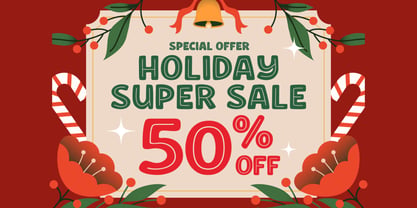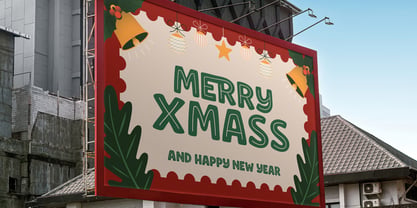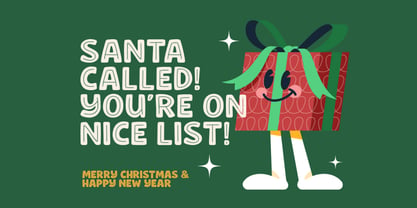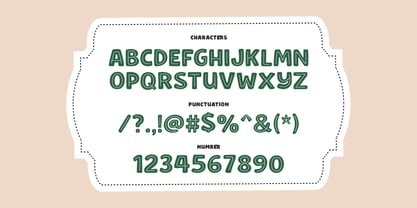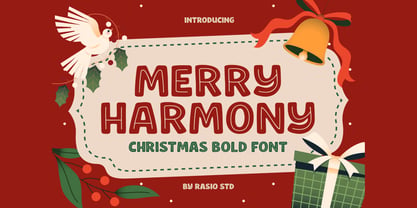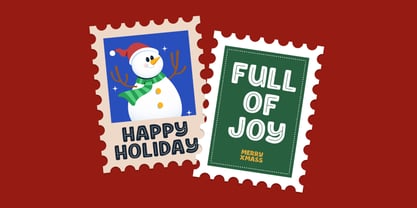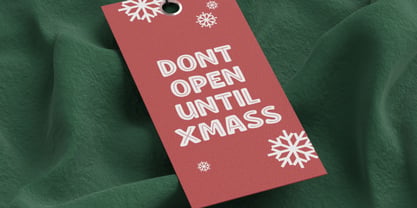
Merry Harmony
by Rasio Studio
The Merry Harmony Font Family was designed by Fajar Indra and published by Rasio Studio. Merry Harmony contains 1 styles. More about this family
Merry Harmony is a playful bold display font with rounded forms and a cheerful holiday character. The design features soft curves, thick strokes, and a friendly hand-drawn feel that enhances readability while maintaining a festive personality. Includes uppercase, lowercase, numerals, punctuation, ligatures, and alternates with multilingual support. This font is highly relevant for holiday-themed visuals that require a fun, warm, and eye-catching tone. It works well for Christmas promotions, seasonal sales banners, greeting cards, gift packaging, social media posts, children-related designs, and festive branding that aims to feel friendly and inviting.
Designers: Fajar Indra
Foundry: Rasio Studio